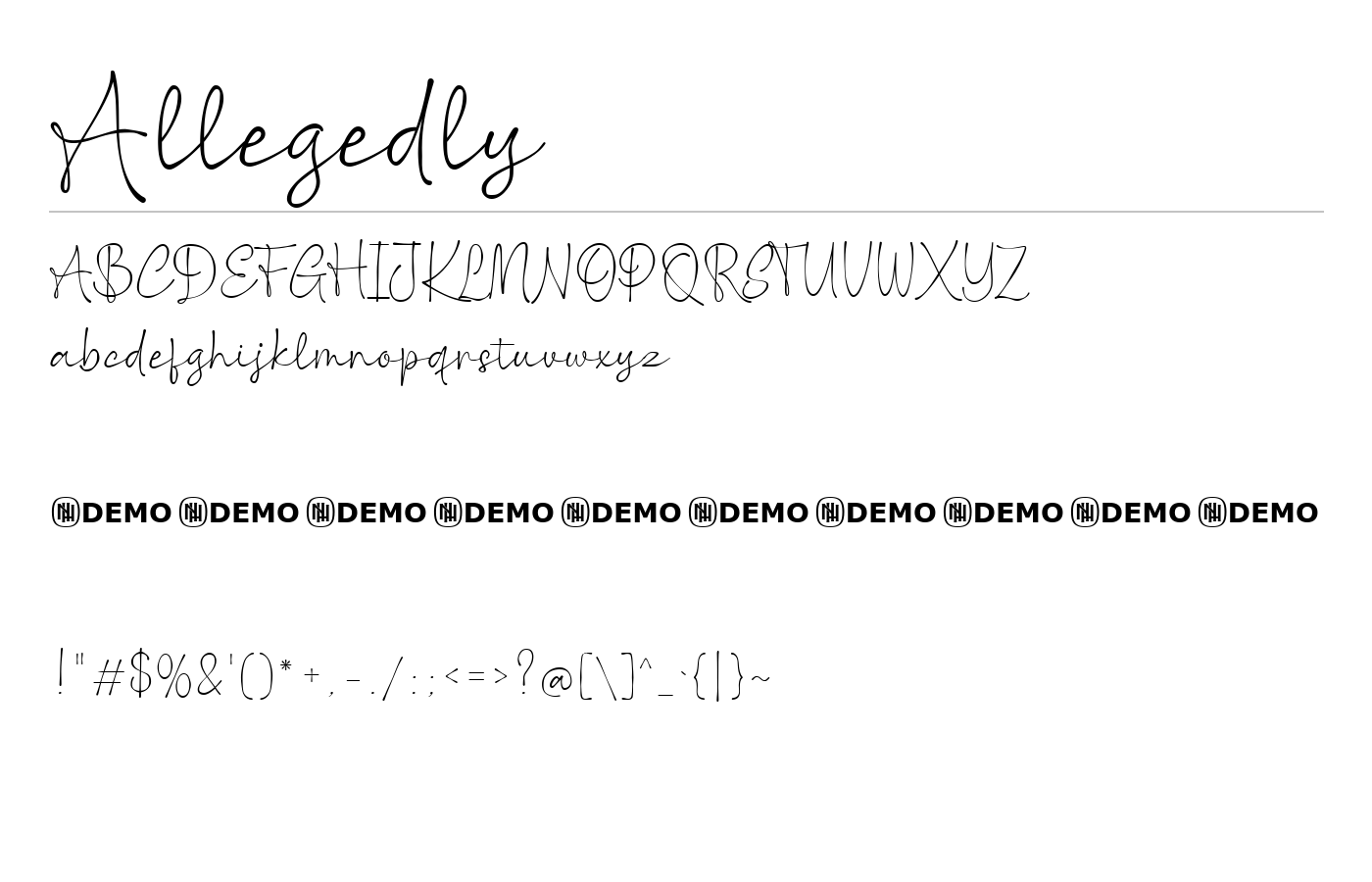
Allegedly is a delicate and elegant handwritten script font that features tall, slender letterforms with a light stroke weight and subtle fluidity. Its graceful, flowing lines give it a personal, artistic feel, making it ideal for designs that require a touch of sophistication and warmth, such as invitations, branding, or creative editorial work. This font works well where a refined, charming signature style is desired to convey authenticity and creativity.
Allegedly Font
About Allegedly Font